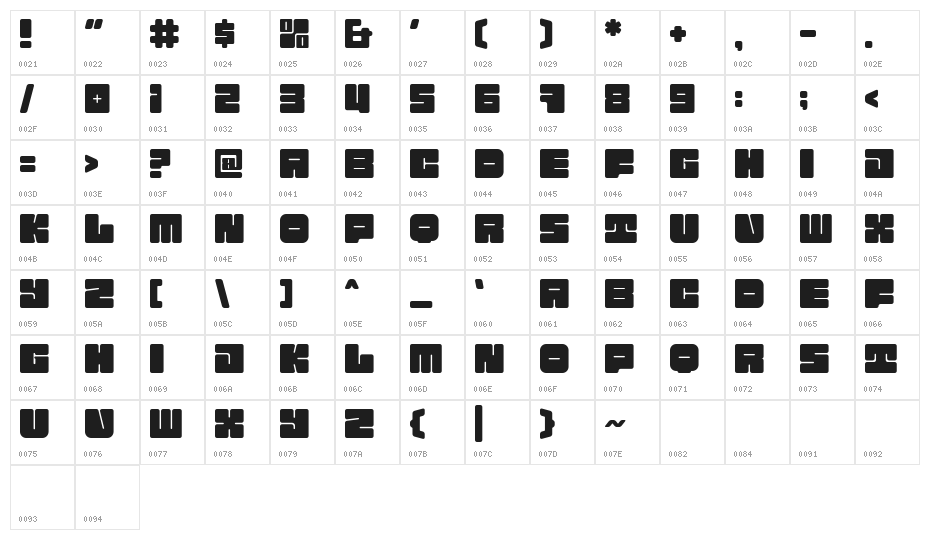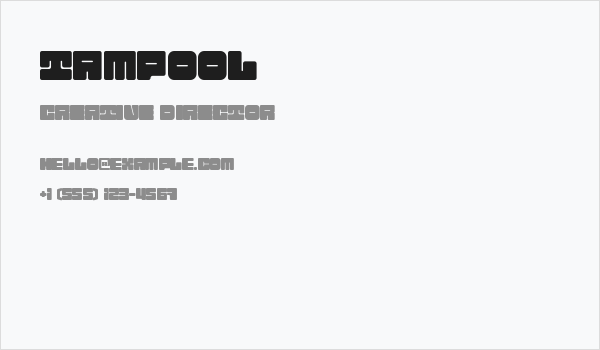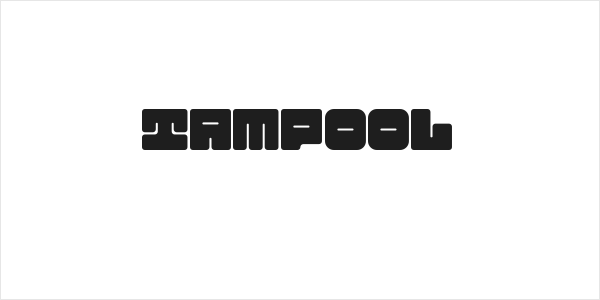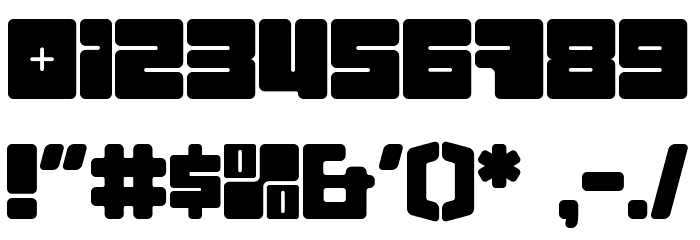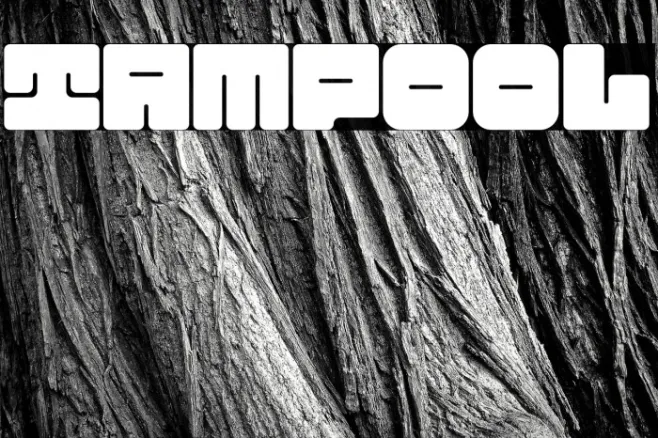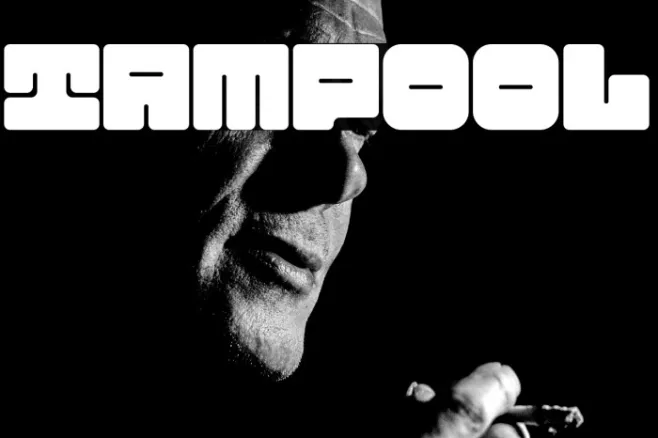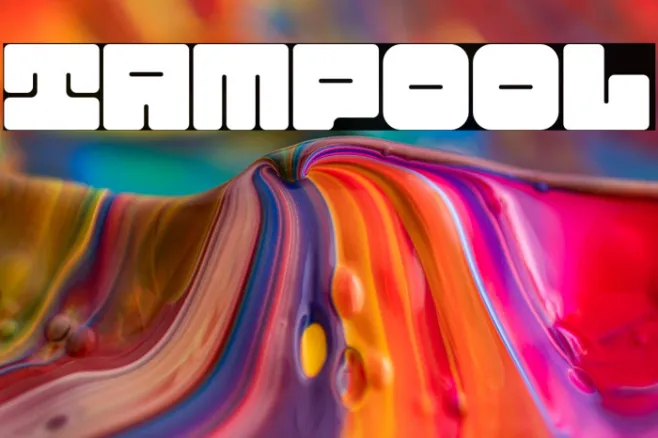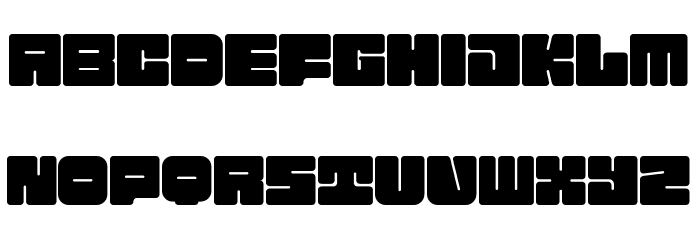
TAMPOOL Font
TAMPOOL Description
This font features bold, blocky characters with a strong geometric presence. The letters are uniformly thick, creating a sense of solidity and strength. The design is highly stylized, with each character maintaining a consistent width and height, contributing to a cohesive and impactful visual appearance. The font's boldness is emphasized by its thick strokes and lack of contrast, making it ideal for attention-grabbing headlines or display purposes. The characters are tightly spaced, enhancing the compact and robust look. This font's unique style makes it suitable for modern and futuristic designs, where a strong visual statement is desired.
| Proposed Projects | Ideal for posters, logos, video game graphics, and branding materials that require a strong, modern aesthetic. |